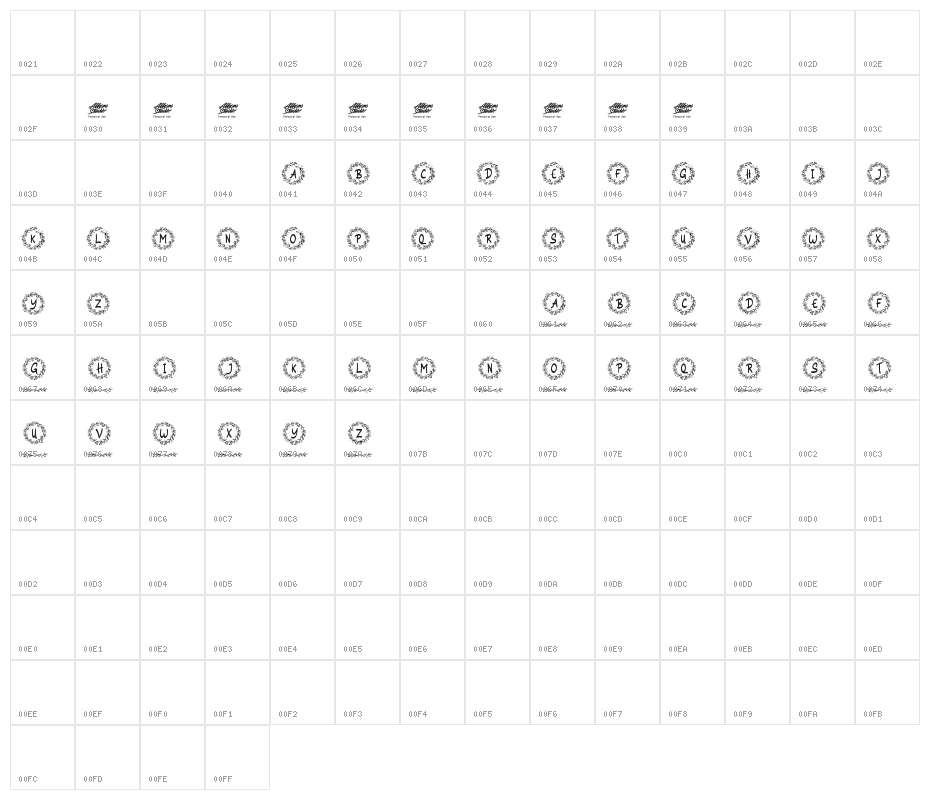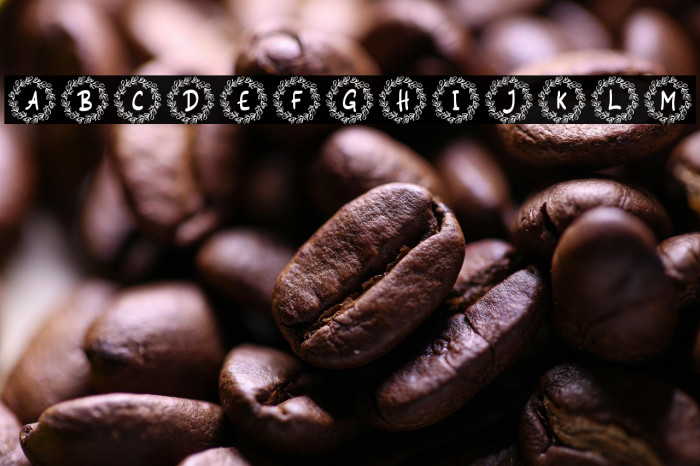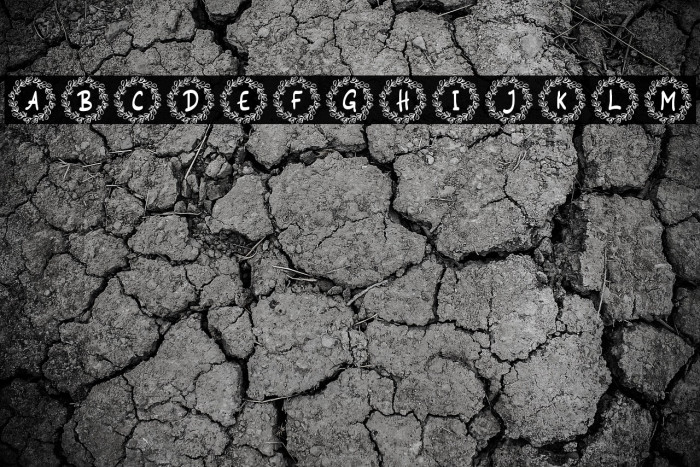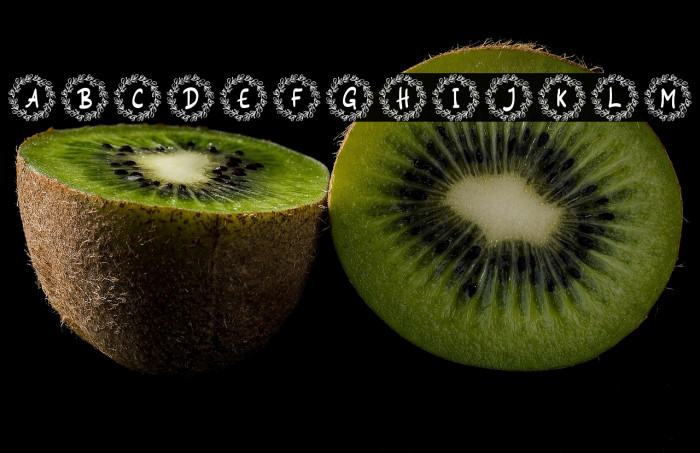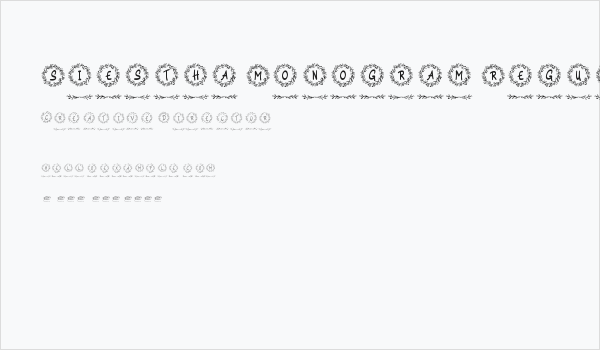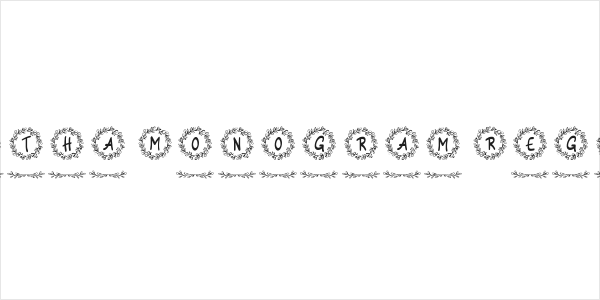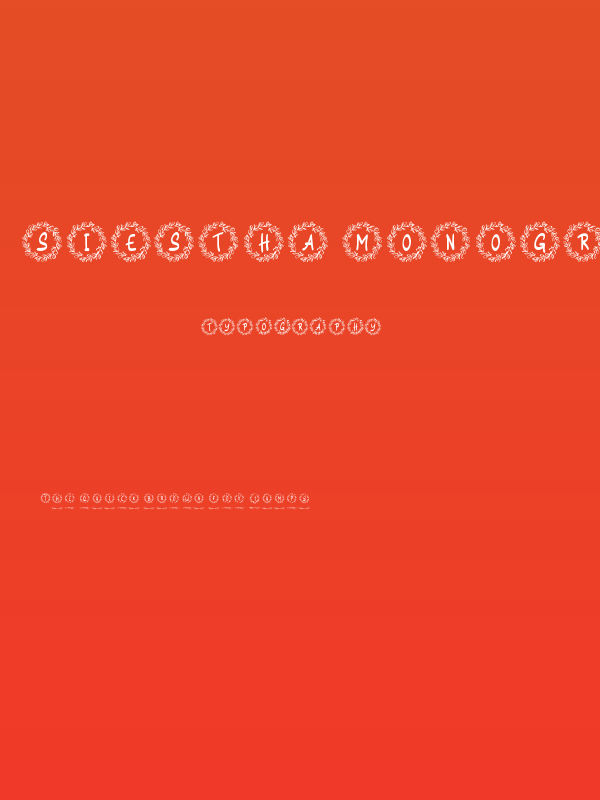
Siestha Monogram Regular Font
Siestha Monogram Regular Description
This font features a unique monogram style where each letter is encased within an ornate, circular wreath design. The letters themselves are bold and clear, providing a strong contrast against the intricate floral patterns that surround them. This decorative style is both elegant and sophisticated, making it ideal for formal and celebratory occasions. The uppercase letters are prominently displayed, emphasizing their importance in the design. The font's artistic nature lends itself well to projects that require a touch of class and personalization, such as wedding invitations, luxury branding, and bespoke stationery. The overall aesthetic is reminiscent of vintage elegance, yet it maintains a modern appeal through its clean letterforms.
| Overall Style | Vintage, Elegant |
| Proposed Projects | Ideal for wedding invitations, luxury branding, bespoke stationery, and personalized gifts. |